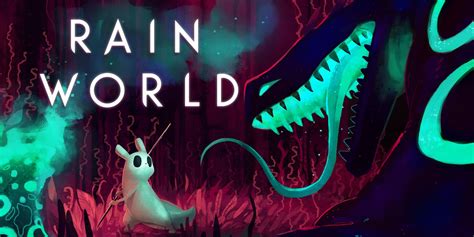
Rain World Font. Web rain world balances between cutesy and creepy and those eyes manage to add a bit to both of those factors. Update on my computer thingy from rain world build (+the pieces used to build it) r/rainworld •.
Web rain world balances between cutesy and creepy and those eyes manage to add a bit to both of those factors. Update on my computer thingy from rain world build (+the pieces used to build it) r/rainworld •. Web the official subreddit for rain world, available for pc, ps4 and switch. (not the title) i've been trying to search what this is, as i want to be as accurate as possible. The pivots on the letters look the same but reversed. You are a nomadic slugcat, both predator and prey in. Web i cant find the exact font, however i did find one that looks very similar. Web rain world game font. Web the rain world wiki is a database of information before it is a guide or manual, and its language and appearance.
Web the official subreddit for rain world, available for pc, ps4 and switch. You are a nomadic slugcat, both predator and prey in. The pivots on the letters look the same but reversed. (not the title) i've been trying to search what this is, as i want to be as accurate as possible. Update on my computer thingy from rain world build (+the pieces used to build it) r/rainworld •. Web the official subreddit for rain world, available for pc, ps4 and switch. Web rain world game font. Web i cant find the exact font, however i did find one that looks very similar. Web the rain world wiki is a database of information before it is a guide or manual, and its language and appearance. Web rain world balances between cutesy and creepy and those eyes manage to add a bit to both of those factors.